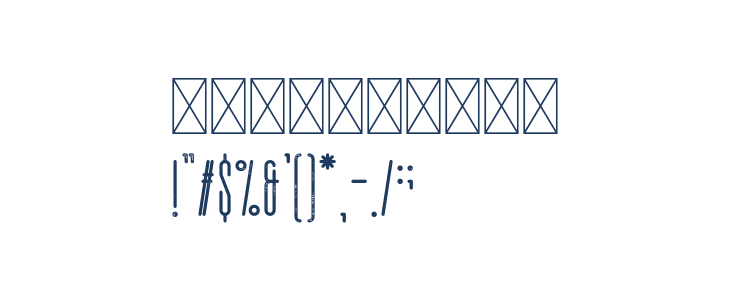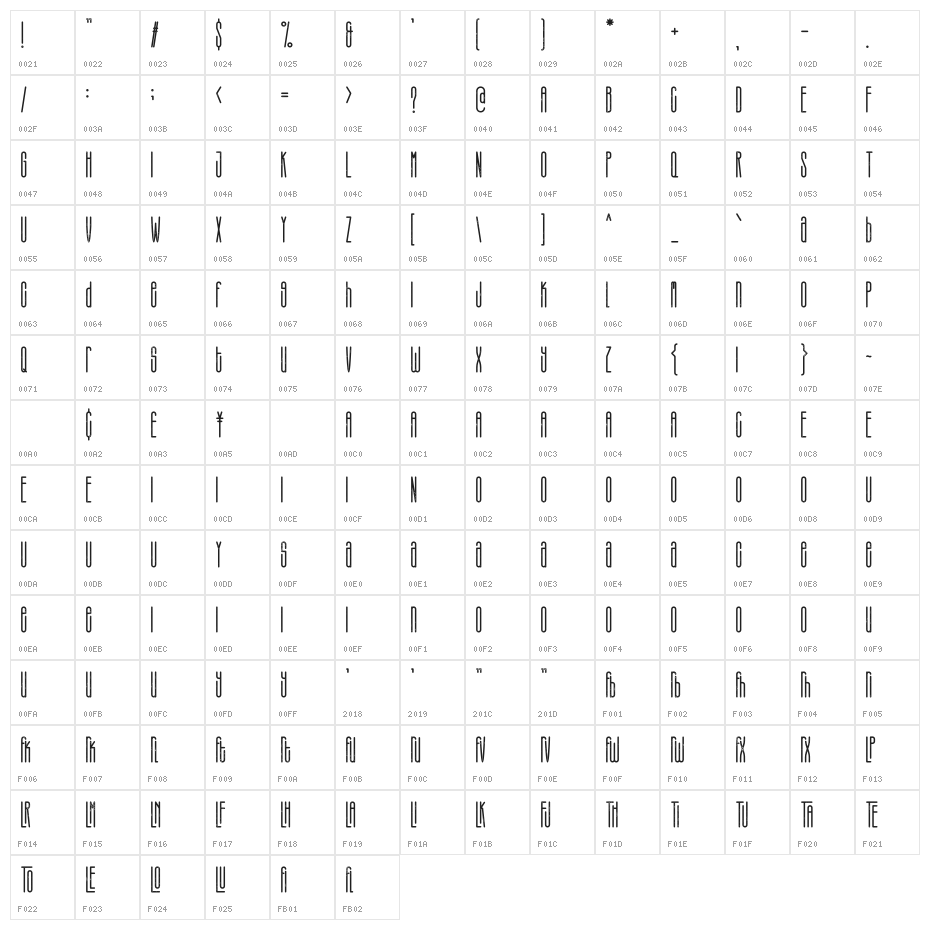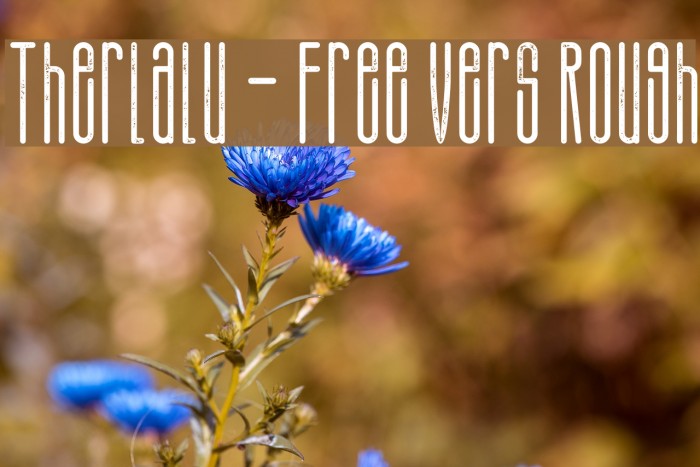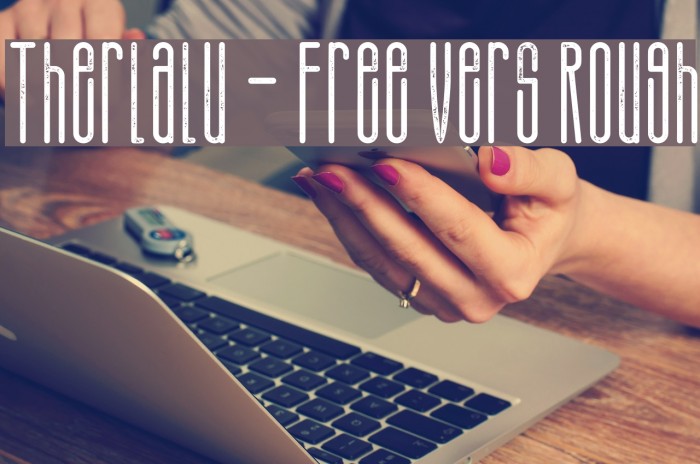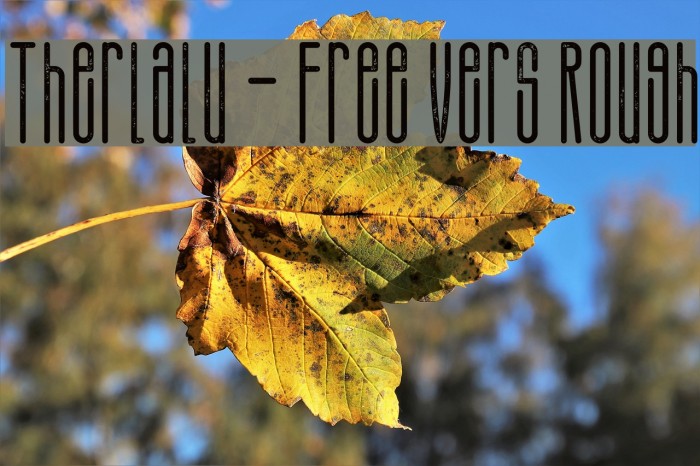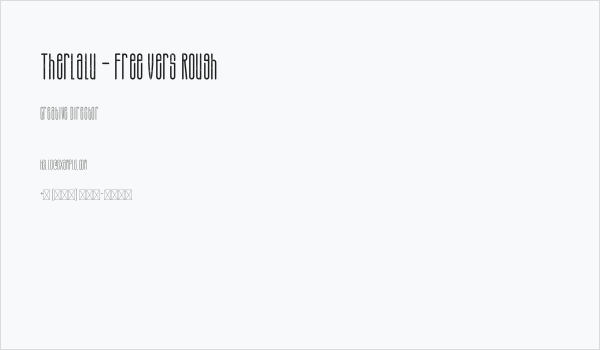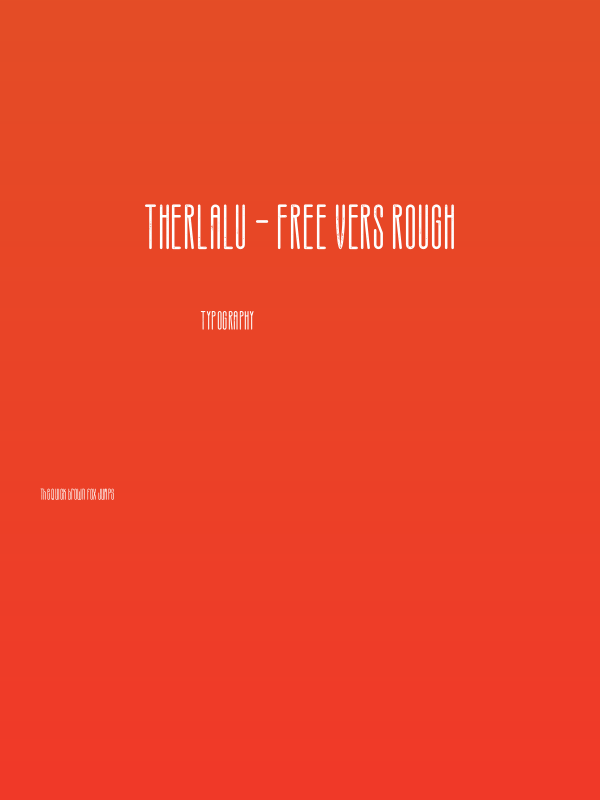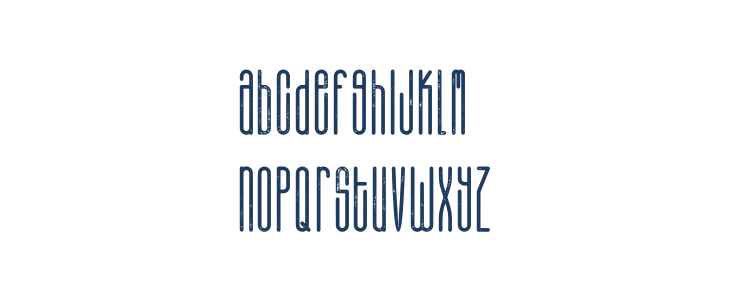
Therlalu - Free Vers Rough Font
Therlalu - Free Vers Rough Description
This font features a tall, narrow design with a rough, distressed texture that gives it a vintage and worn appearance. The uppercase and lowercase letters are elongated, creating a striking vertical emphasis. The characters have a consistent width, contributing to a uniform look across the typeface. The rough texture adds a handcrafted feel, making it ideal for projects that require a rustic or retro aesthetic. The special characters and numbers maintain the same distressed style, ensuring cohesion throughout any text. This font's unique style makes it suitable for creative and artistic projects.
| Proposed Projects | Ideal for vintage posters, retro branding, artistic book covers, and rustic-themed designs. |